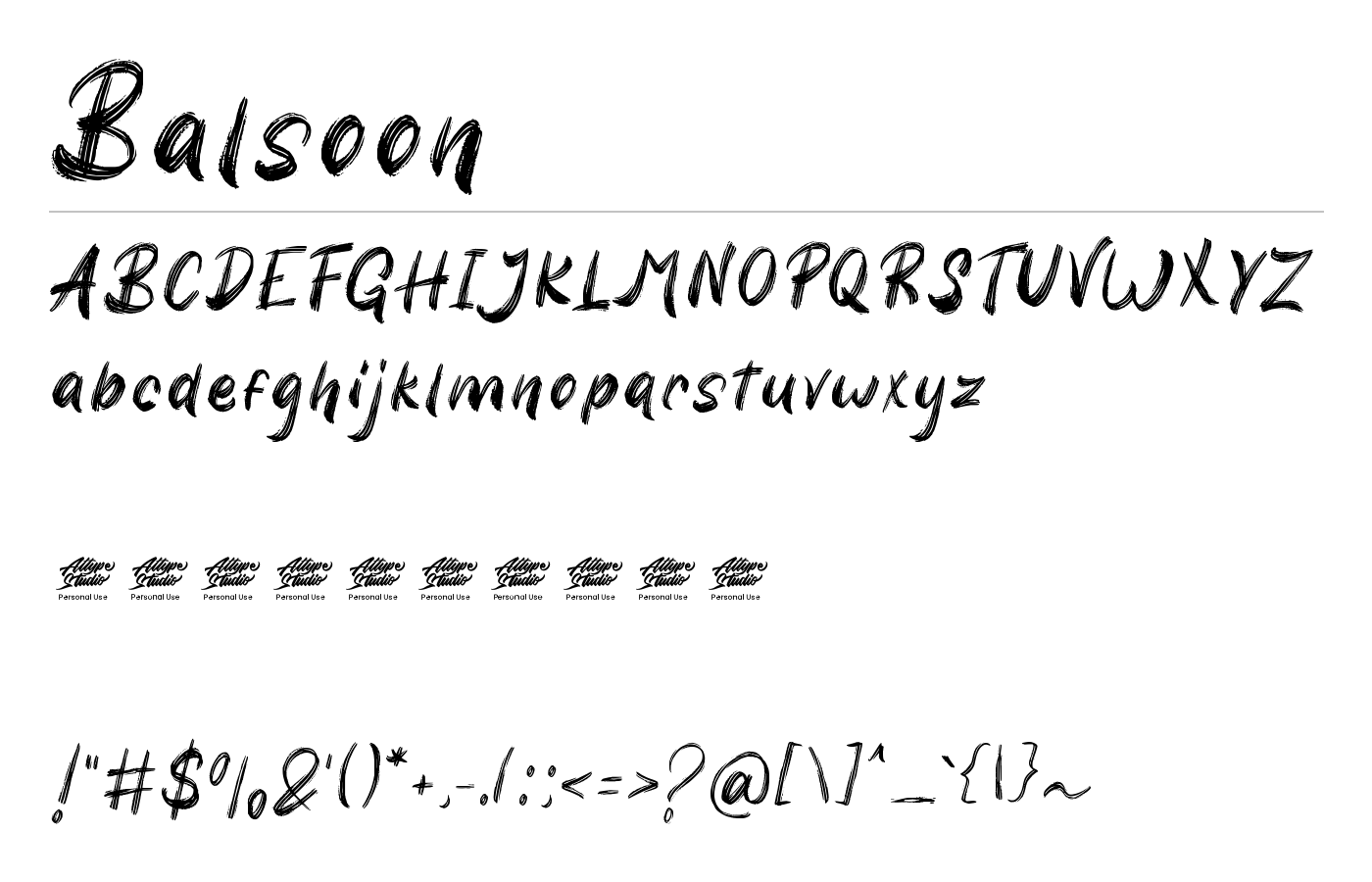
Balsoon is a lively, brush script font with a hand-painted feel, featuring irregular, textured strokes that give it a dynamic and artistic personality. Its casual yet expressive style works great for creative projects, branding, and headlines where a natural, handcrafted touch is desired. This font brings energy and warmth, making it perfect for informal designs that want to stand out with a personal and energetic vibe.
Balsoon Font
About Balsoon Font